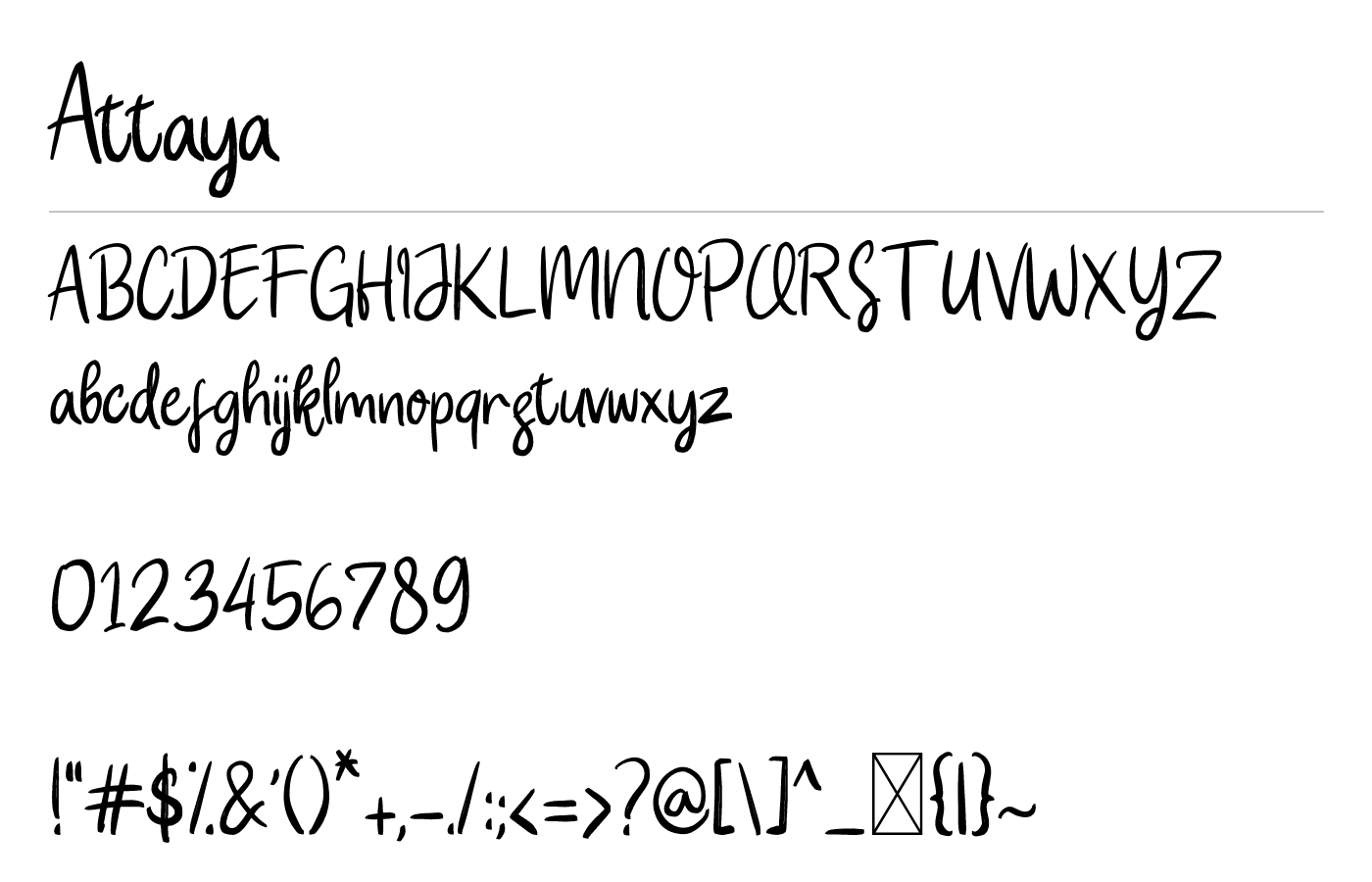
Attaya is a playful and informal handwritten font with a lively, casual feel. Its uneven strokes and quirky letterforms give it a friendly, approachable personality perfect for creative projects, invitations, or branding that wants to convey warmth and originality. This font works well in headlines, logos, and packaging where a personal touch and artistic flair are desired.
Attaya Font
About Attaya Font
| Designer | Iis Syifauarrahmah & Ahmad Syarif Afandi (Peterdraw) |